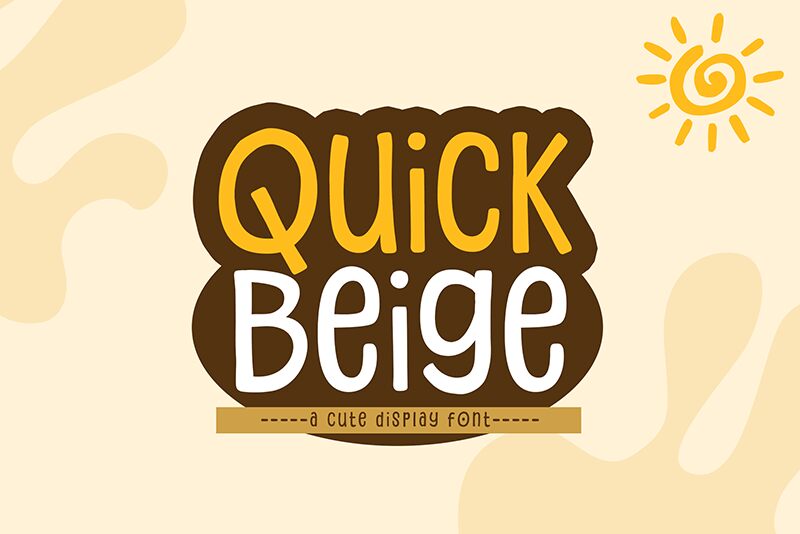
Quick Beige
Quick Beige font by Khurasan stands out as a casual, hand-drawn display font characterized by its freeform serifs and cartoon style. Its whimsical, organic design gives off a friendly and approachable feel, making it perfect for projects requiring a light-hearted touch.
This free display font can be used in branding, logo designs, posters, advertising materials, packaging labels, comics, children’s books, social media content creation, videos or video games titling and websites.